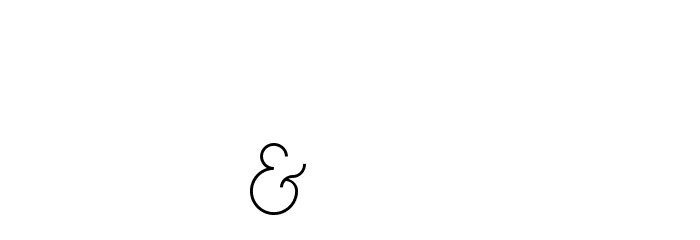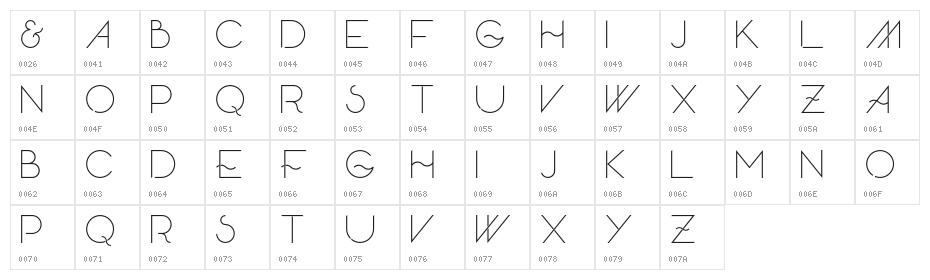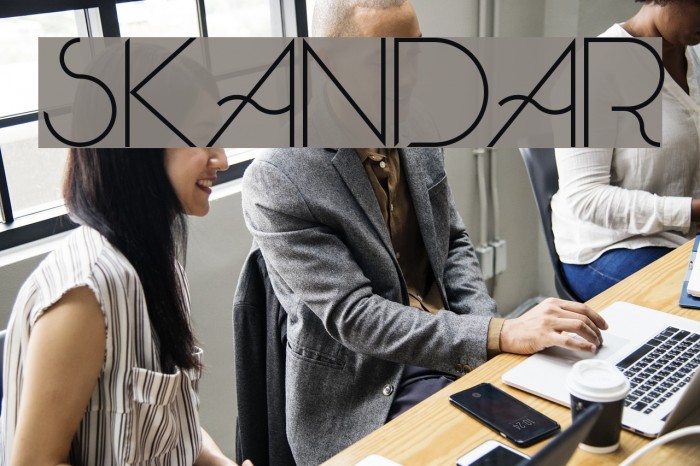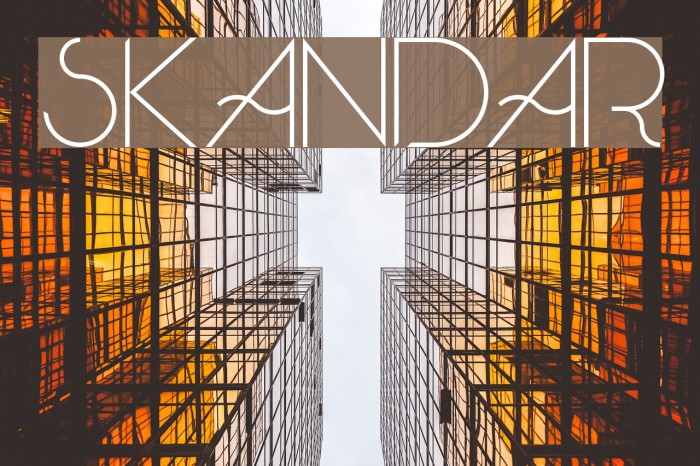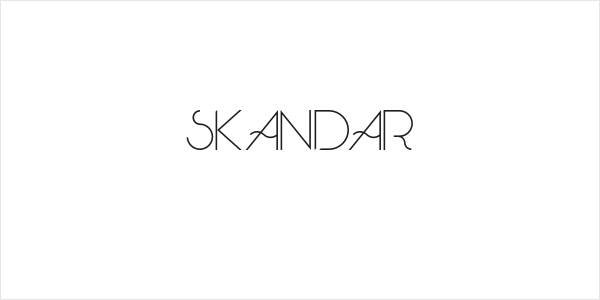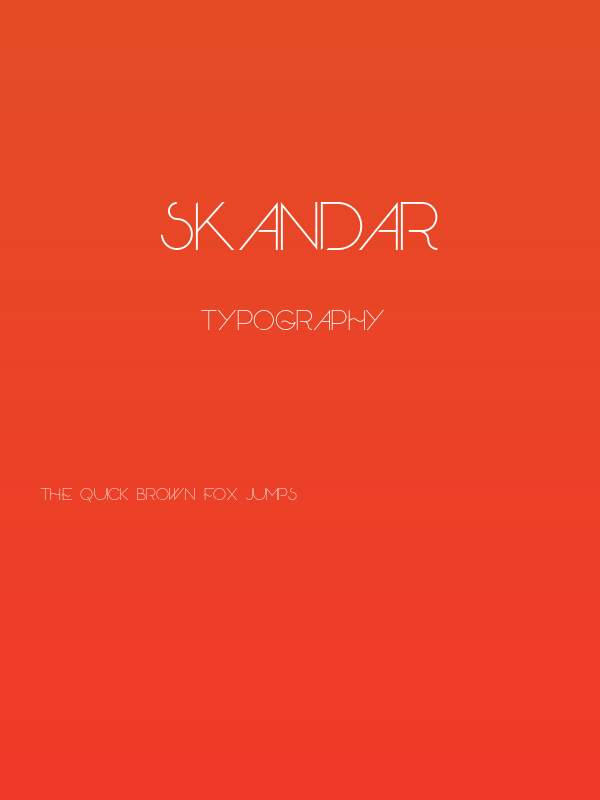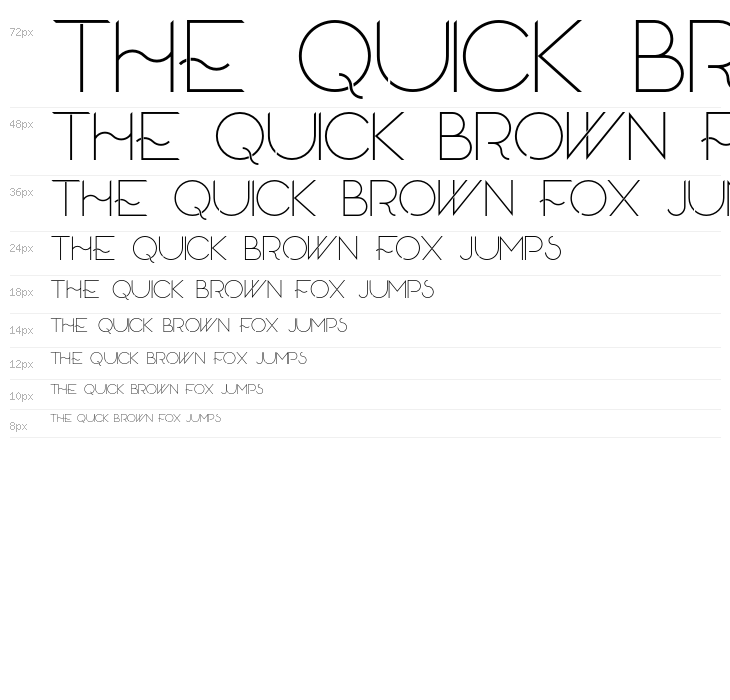
Skandar Font
Skandar Description
This font features a unique and modern design with a geometric and artistic flair. The uppercase letters are characterized by clean lines and sharp angles, often incorporating unexpected curves and breaks within the strokes, giving it a distinctive and stylish appearance. The lowercase letters maintain a similar aesthetic, ensuring consistency across the typeface. The ampersand is particularly notable for its elegant and flowing form, which contrasts with the more angular letters. This font's design is both minimalistic and decorative, making it suitable for a variety of creative applications.
| Proposed Projects | Ideal for branding, logos, fashion magazines, and modern art projects. |